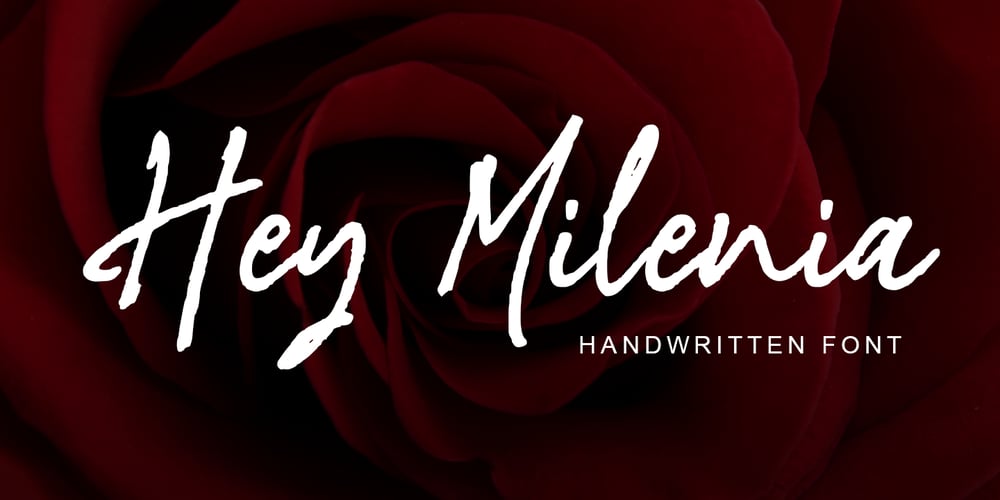
Hey Milenia Font Family was designed by Abo Daniel and published by Abo Daniel. Hey Milenia contains 1 styles and family package options. “Hey Milenia” is a natural handwritten font made with a real premium pen. It is great for quotes, advertisements, cover books, posters, business cards, and more projects that need a natural, handwritten touch. Hey Milenia comes in Regular and Slant, the ligatures make this font look natural.